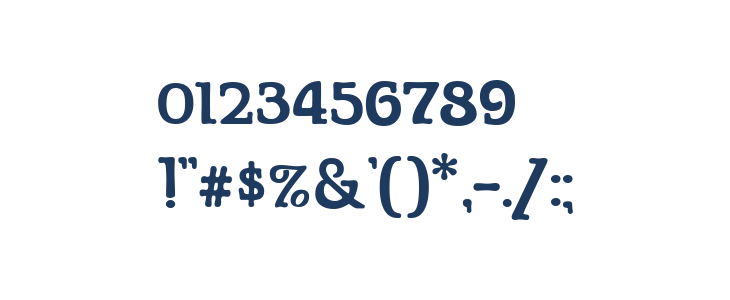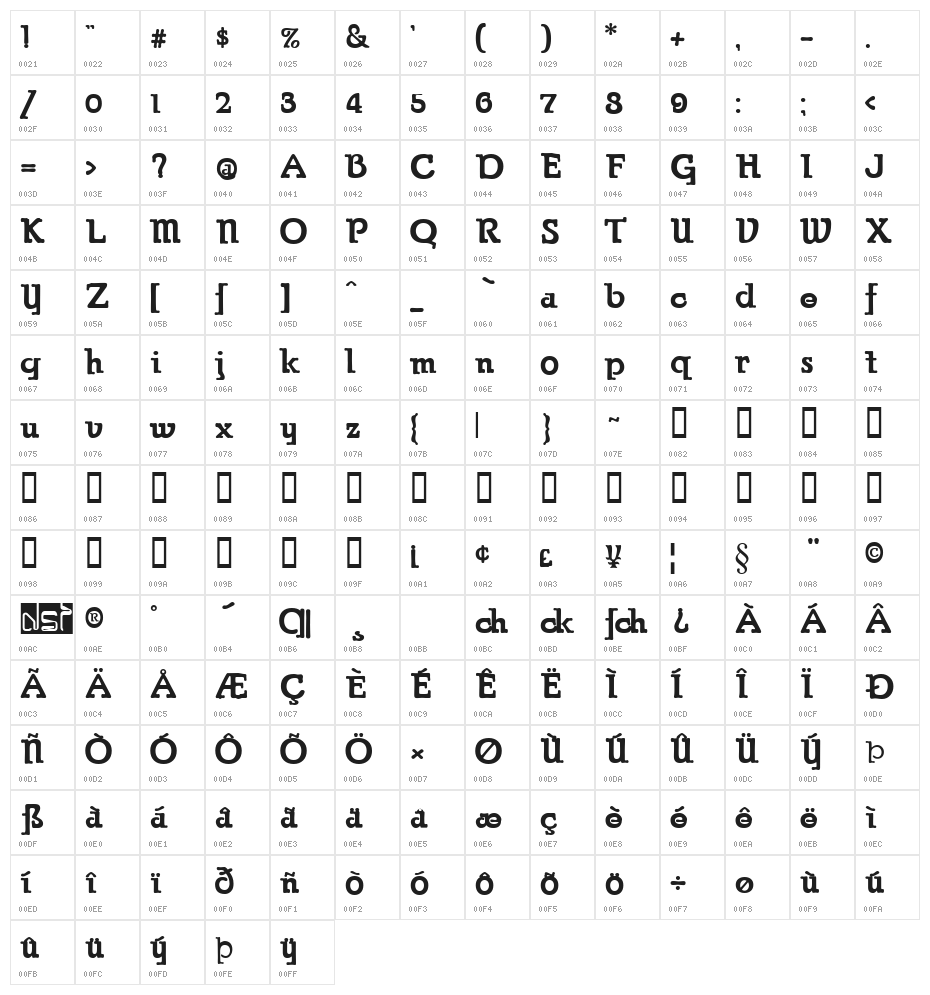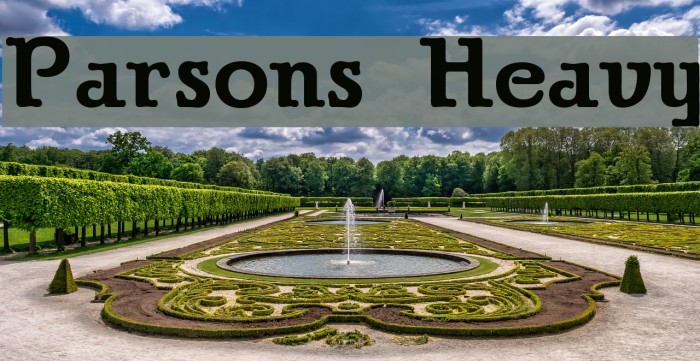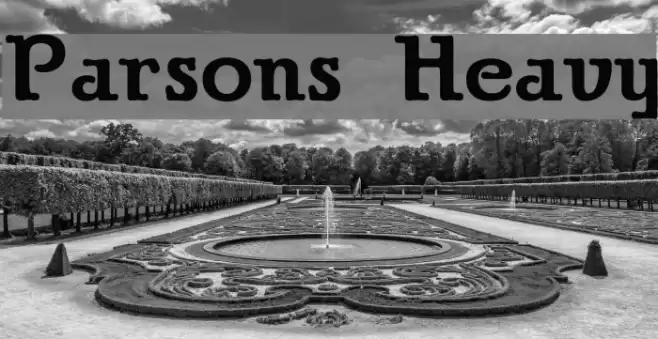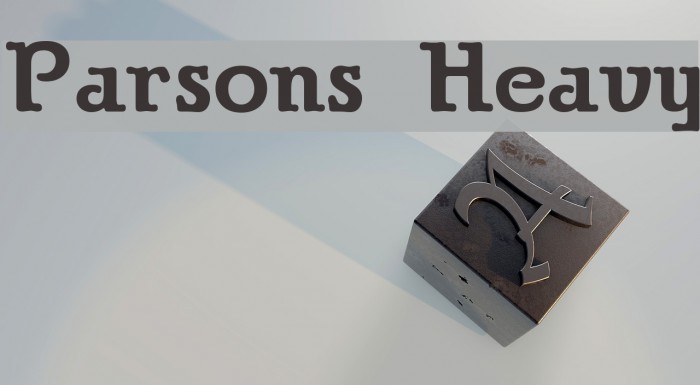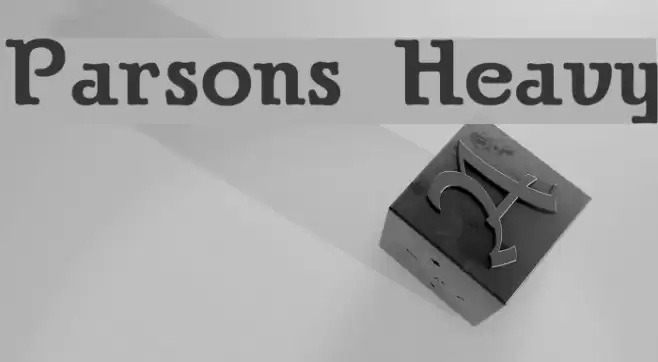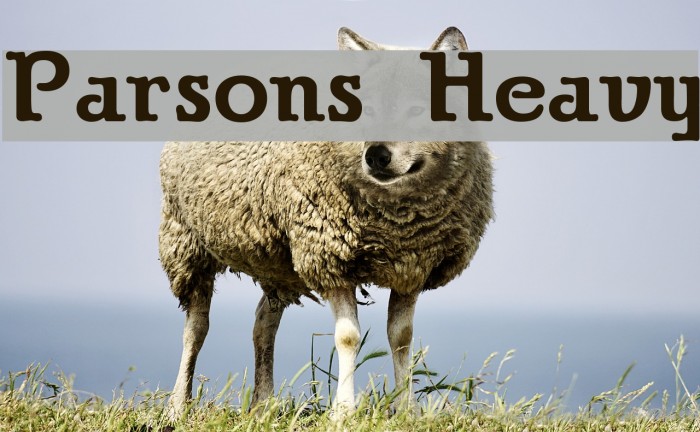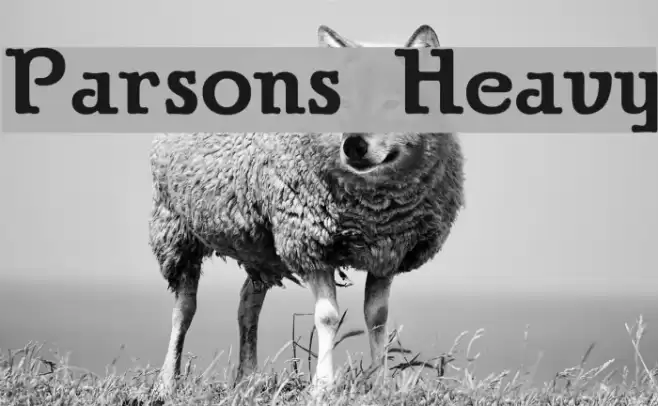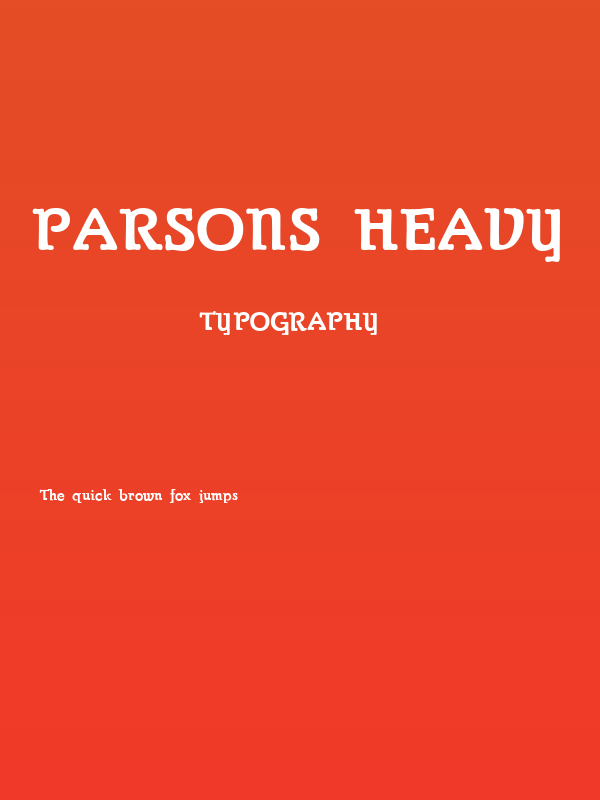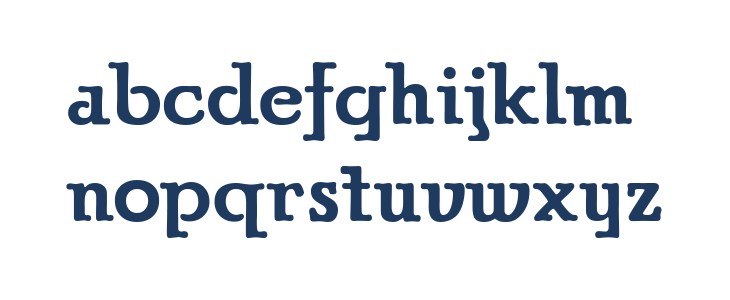
Parsons Heavy Font
Parsons Heavy Description
This font features a bold and robust design with a distinctive slab serif style. The characters are well-defined with thick strokes and rounded edges, giving it a strong and confident appearance. The uppercase letters exhibit a uniform height, while the lowercase letters maintain a consistent baseline, enhancing readability. The numerals are clear and balanced, matching the overall boldness of the alphabet. Special characters are crafted with the same attention to detail, ensuring they integrate seamlessly with the text. This font's heavy weight and unique style make it ideal for impactful designs.
| Proposed Projects | Ideal for posters, headlines, branding, and any design requiring a strong visual impact. |